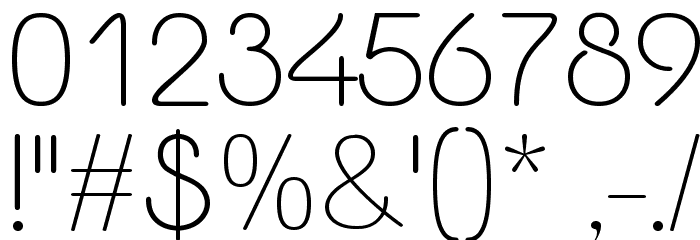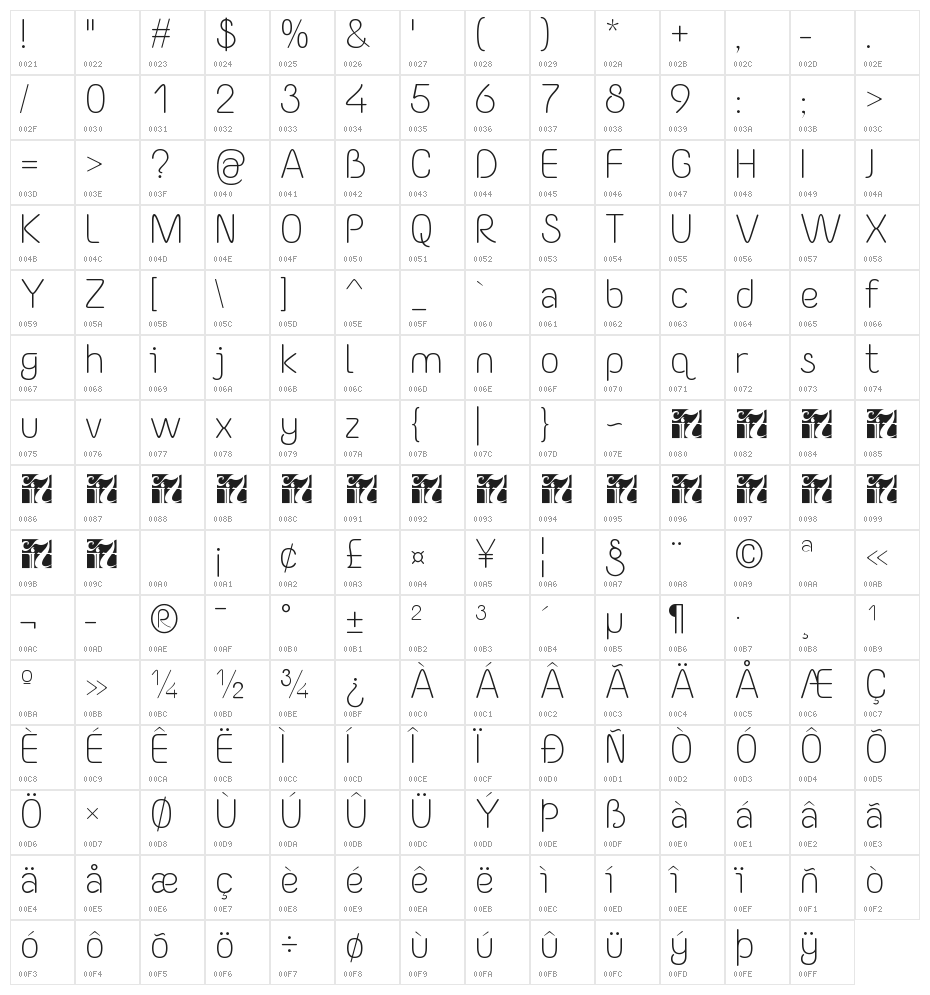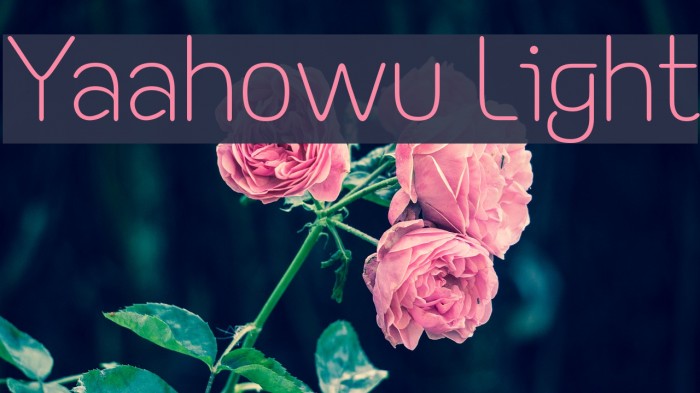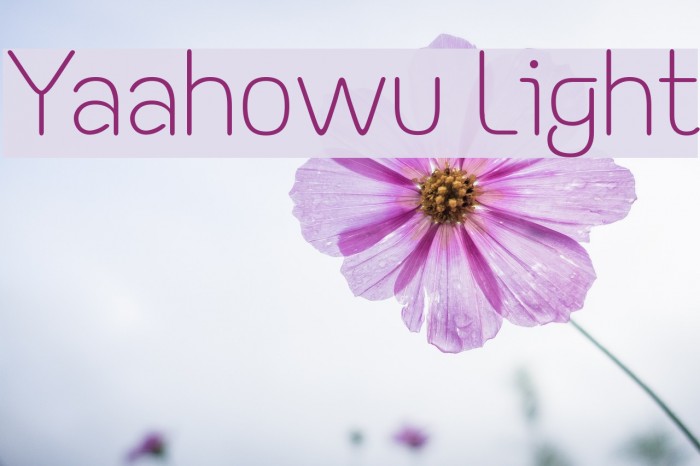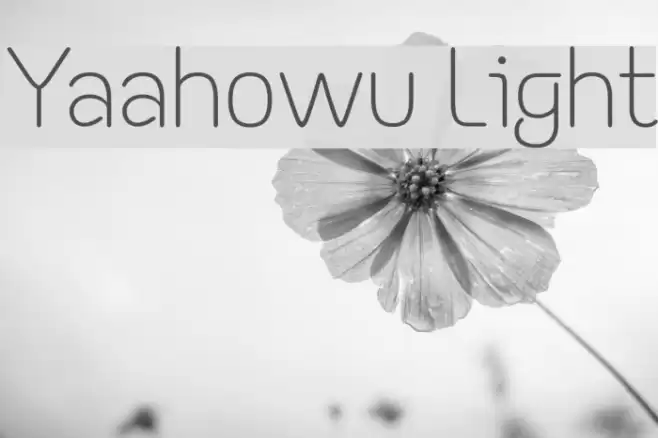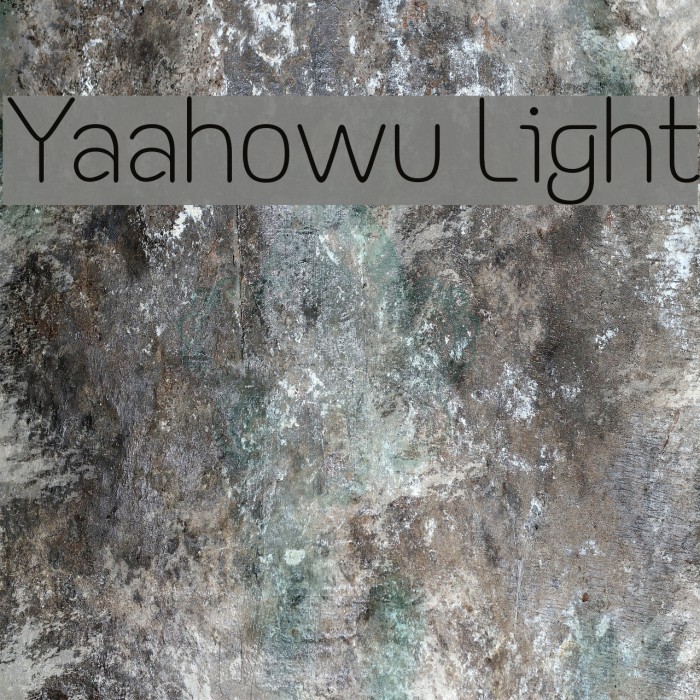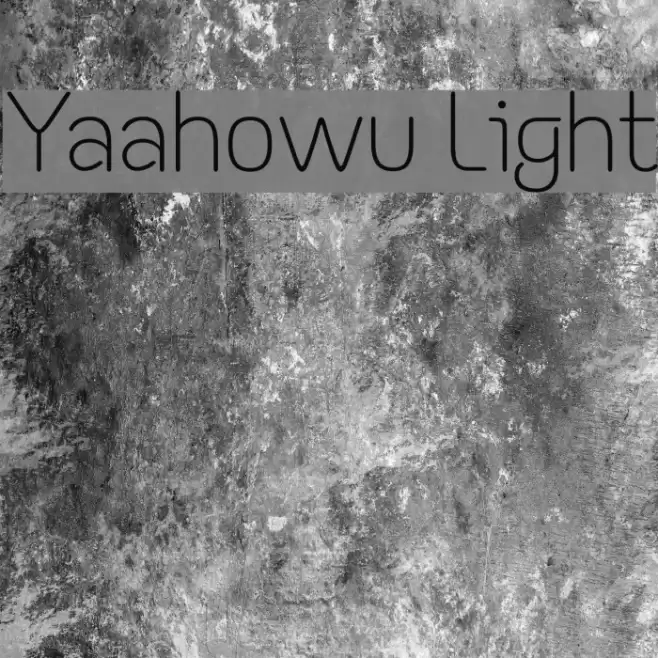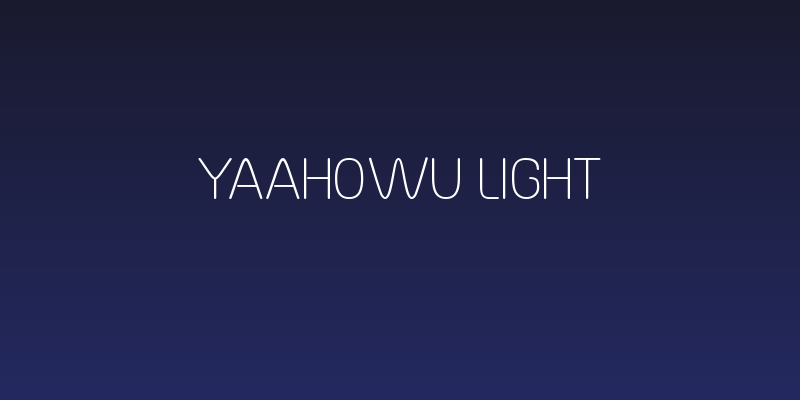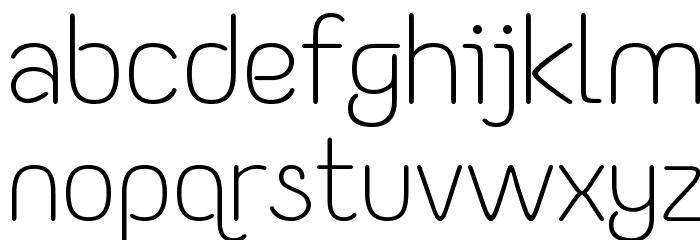
Yaahowu Light Font
Yaahowu Light Description
This font features a clean and modern sans-serif design with rounded edges, giving it a friendly and approachable appearance. The characters are evenly spaced with a consistent stroke width, contributing to its legibility and simplicity. The uppercase letters are slightly taller than the lowercase, maintaining a balanced and harmonious look. The numerals are clear and distinct, matching the overall style of the alphabet. Special characters are included, complementing the font's versatility. Its minimalist aesthetic makes it suitable for a variety of design applications.